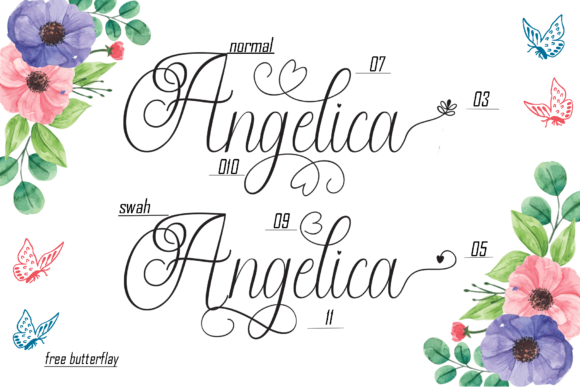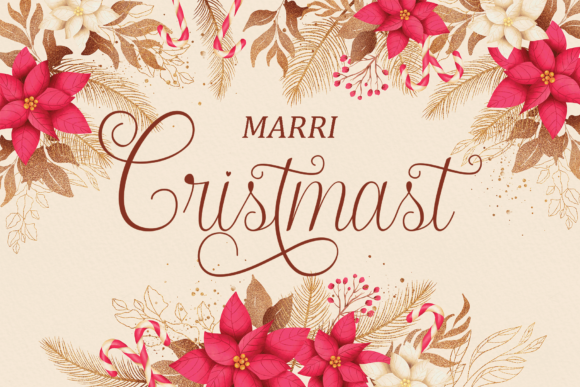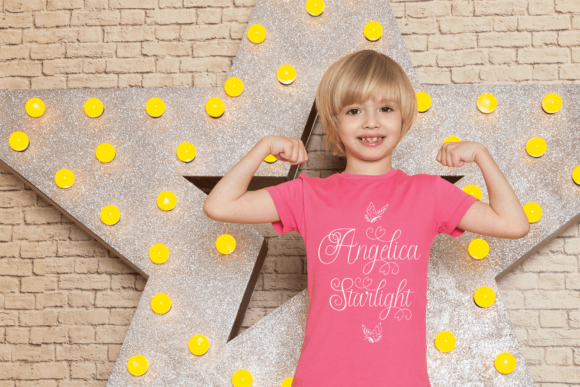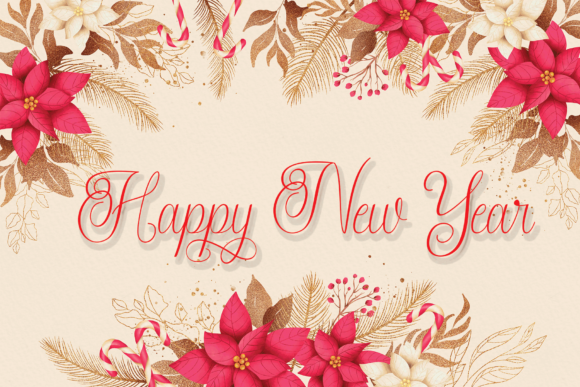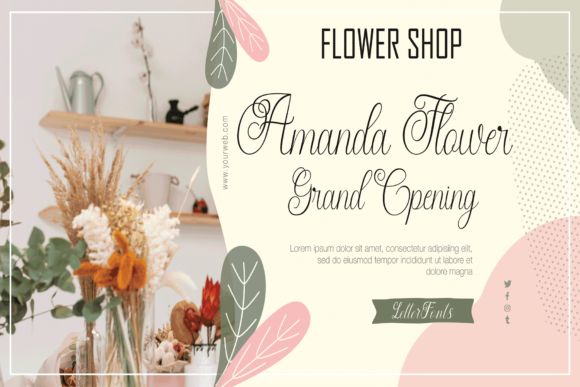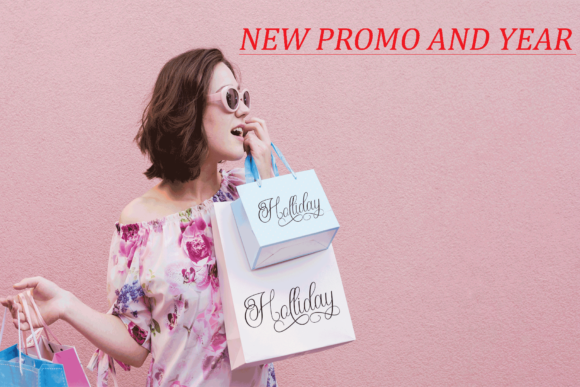
Have you ever been sitting at your desk, staring blankly at a blank sheet of paper, trying to come up with the perfect design concept? It’s a feeling we’ve all been there, and it’s exactly this moment that sparked the creation of the beautiful Angeleca Font. This delicate and well-balanced handwritten font was designed to bring a touch of personality to your designs, making it perfect for wedding invitations, thank you cards, and other special occasions.
What sets Angeleca Font apart is its versatility and ease of use. With its PUA encoding, you can access all of the glyphs and swashes with ease, making it a valuable tool for designers looking to add a unique touch to their work. Whether you’re a seasoned pro or just starting out, Angeleca Font is sure to become a go-to choice for any project that requires a personalized style.
- Unique Characteristics: Angeleca Font features a unique blend of modern and elegant design elements, including intricate details, subtle flourishes, and refined lines.
Angeleca Font Review
As a designer, I’ve had the opportunity to work with a wide range of fonts, and Angeleca Font is one that caught my attention. Here’s my honest review.
- Elegant and refined look: Angeleca Font has a sophisticated feel that’s perfect for high-end designs, such as luxury brands, fashion magazines, or fine art pieces.
- Good legibility: The font is clear and easy to read, making it suitable for both print and digital applications.
- Extensive character set: Angeleca Font includes a wide range of characters, including accents and ligatures, making it versatile for various languages.
- Limited expressiveness: While Angeleca Font is elegant, it may lack the emotional depth and personality that some designers seek in a font.
- Not suitable for bold or dramatic designs: The font’s refined nature may not be the best fit for designs that require a bolder or more attention-grabbing look.
Angeleca Font is a solid choice for designers who need a sophisticated and refined font for their projects. While it may not be the most expressive or dramatic option, it’s a reliable choice for high-end designs that require a touch of elegance.
Angeleca Font is a beautiful, elegant script font that is perfect for:
– Luxury brand marketing materials
– Fine art and creative projects